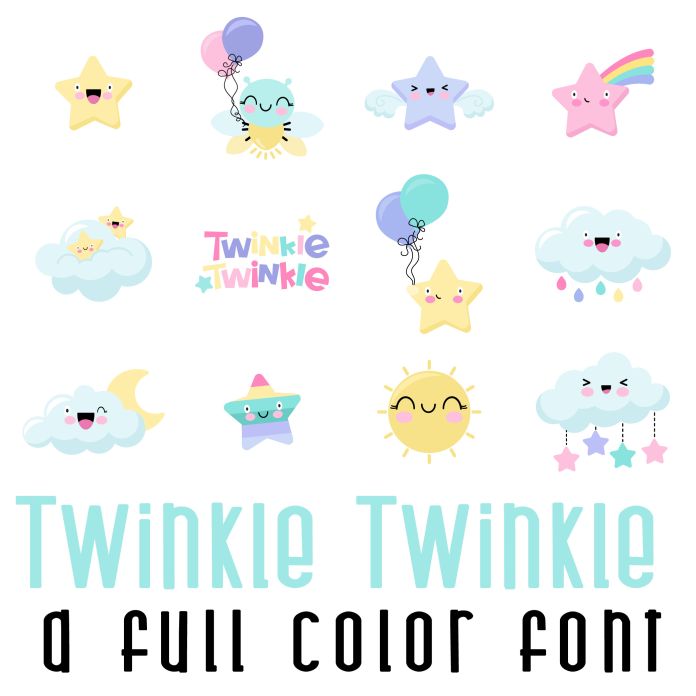
This fun full color font features 26 kawaii style celestial elements from suns, moons and stars. Perfect for classrooms, teachers, gifts, decor, scrap book pages, planner stickers and more!